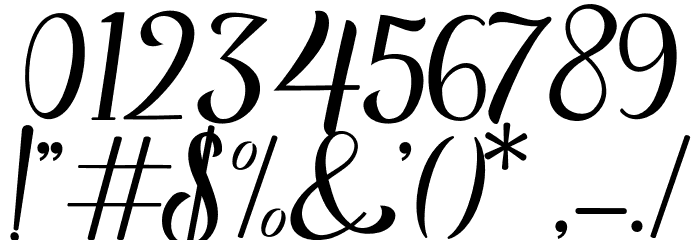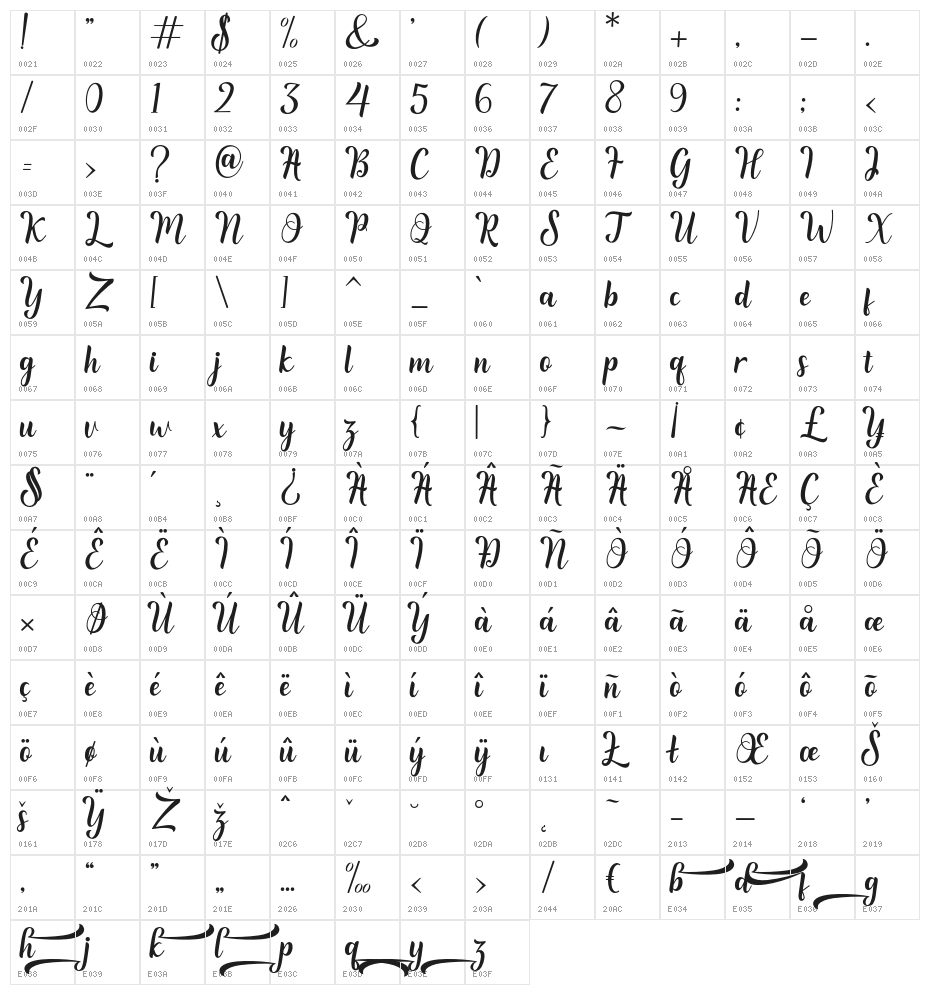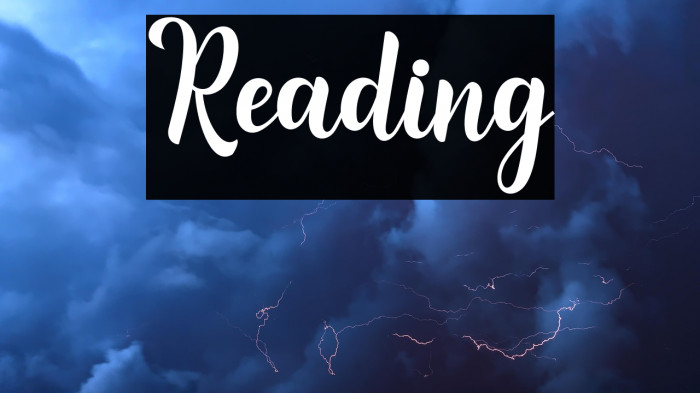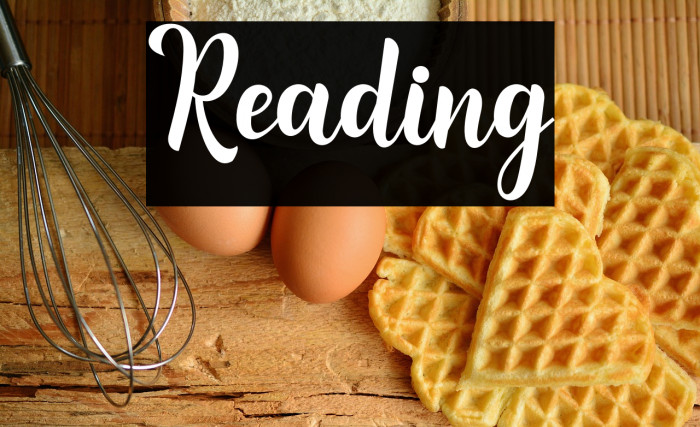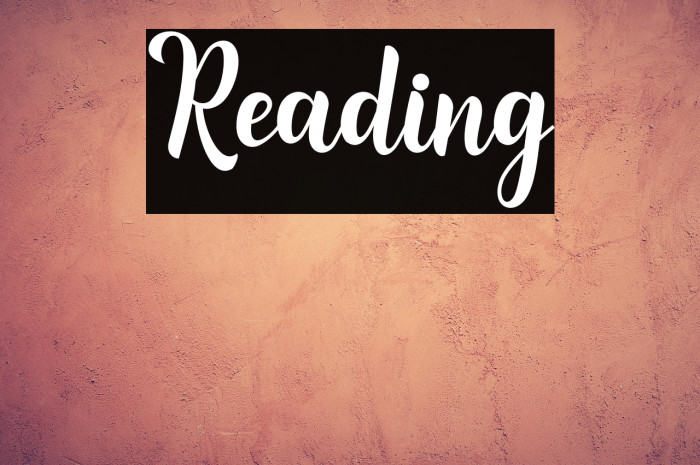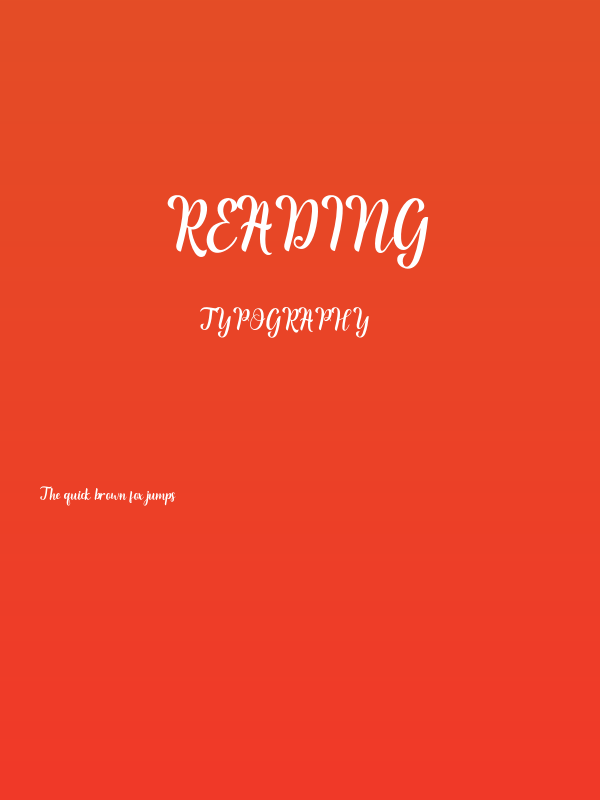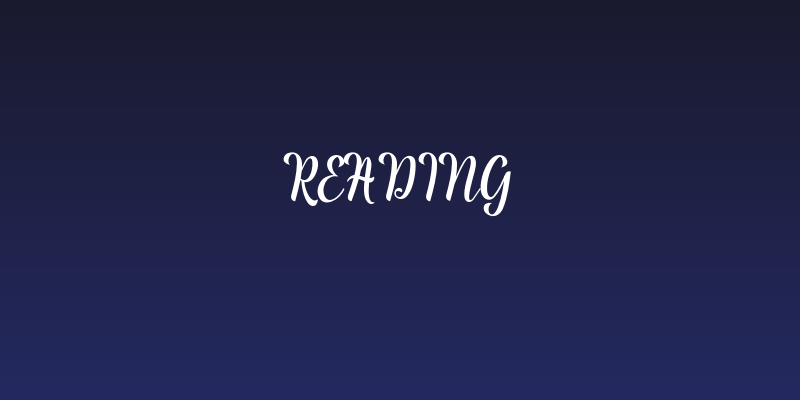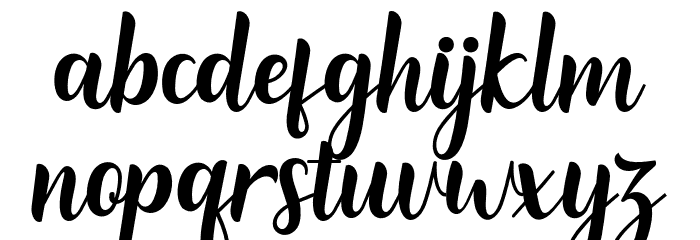
Reading Font
Reading Description
This font features a dynamic and flowing script style, characterized by its elegant and smooth curves. The uppercase letters exhibit a graceful flair with slightly exaggerated loops and swashes, adding a touch of sophistication. The lowercase letters maintain a consistent fluidity, with some characters extending below the baseline, enhancing its handwritten appeal. The numerals are stylishly integrated, maintaining the overall script aesthetic. Special characters are thoughtfully designed to complement the letterforms, ensuring a cohesive look. This font's artistic and decorative nature makes it ideal for creative projects.